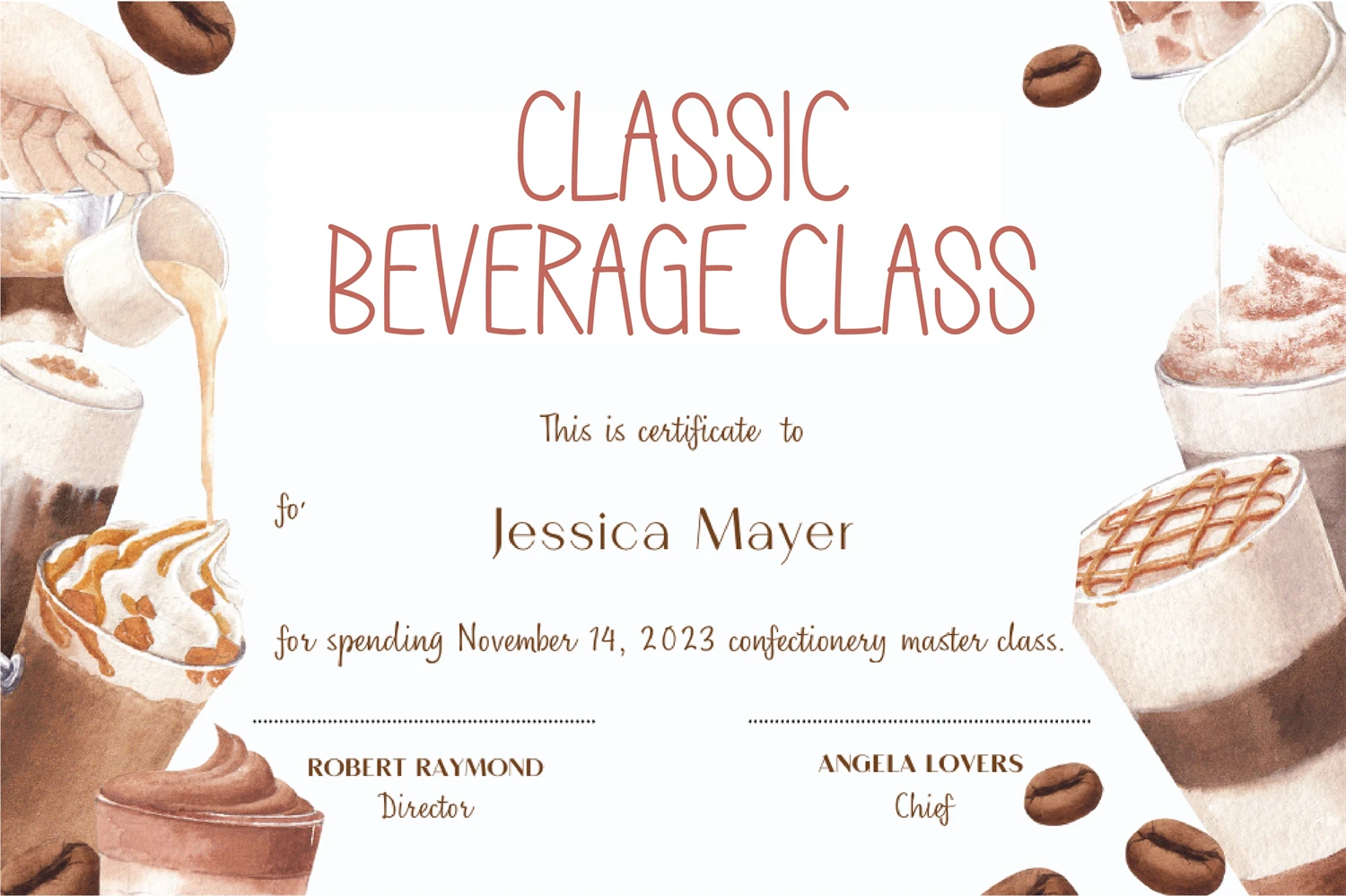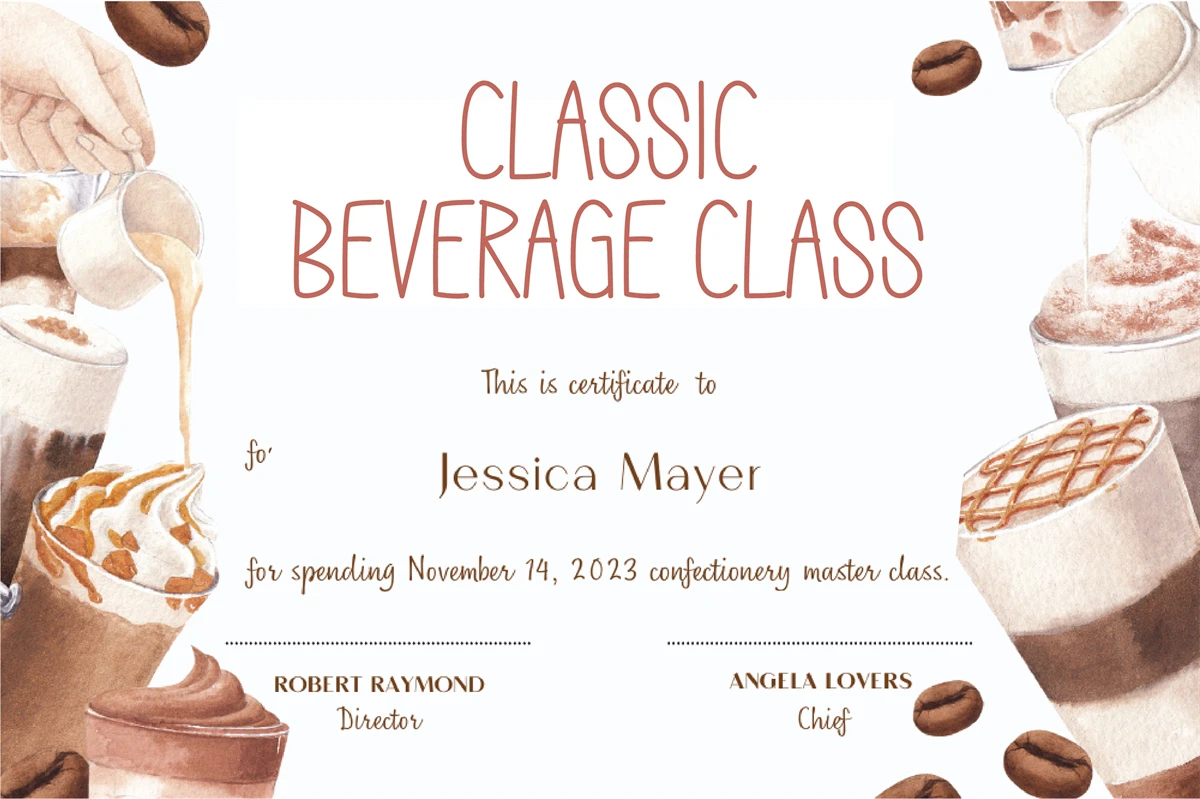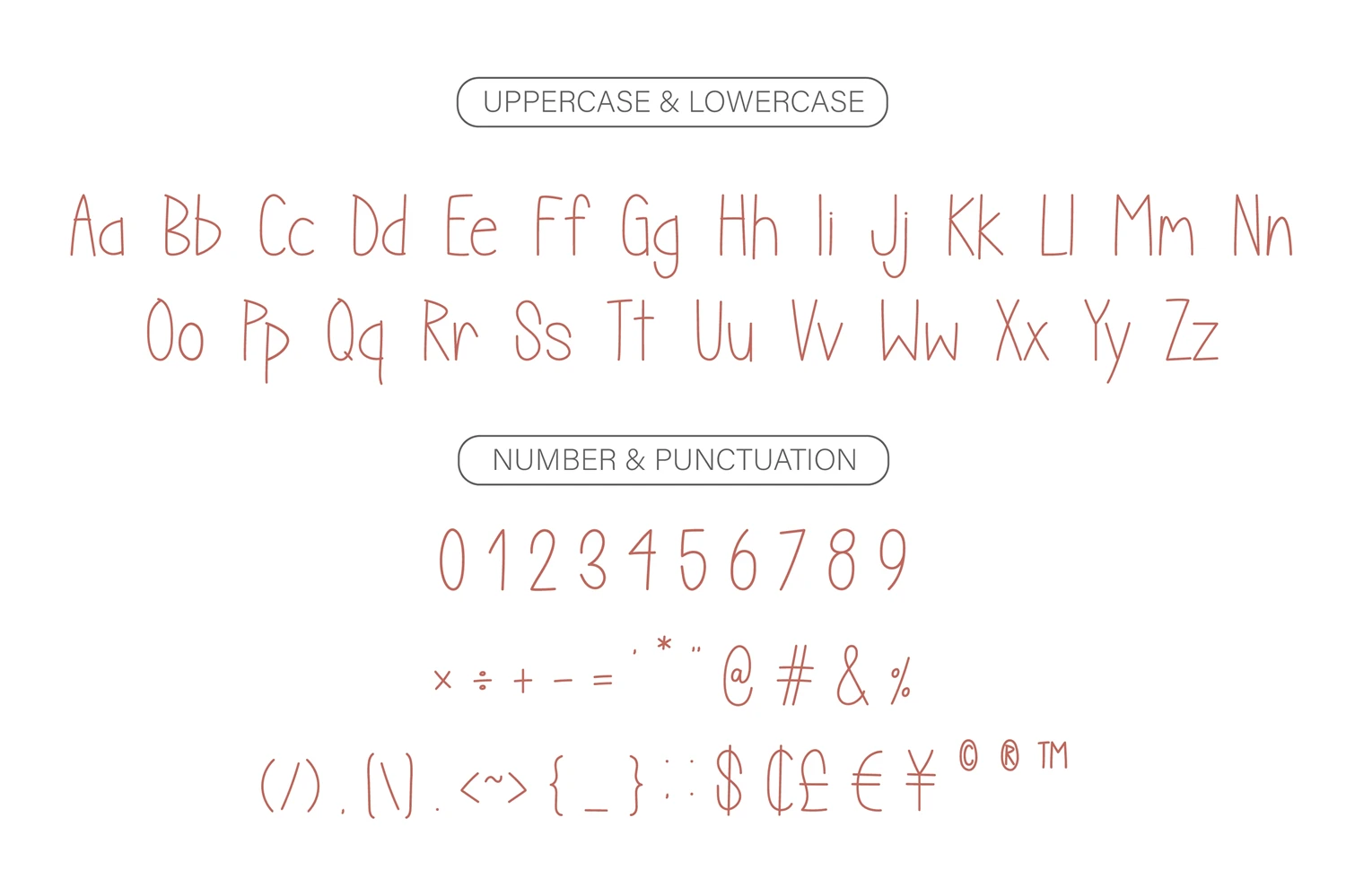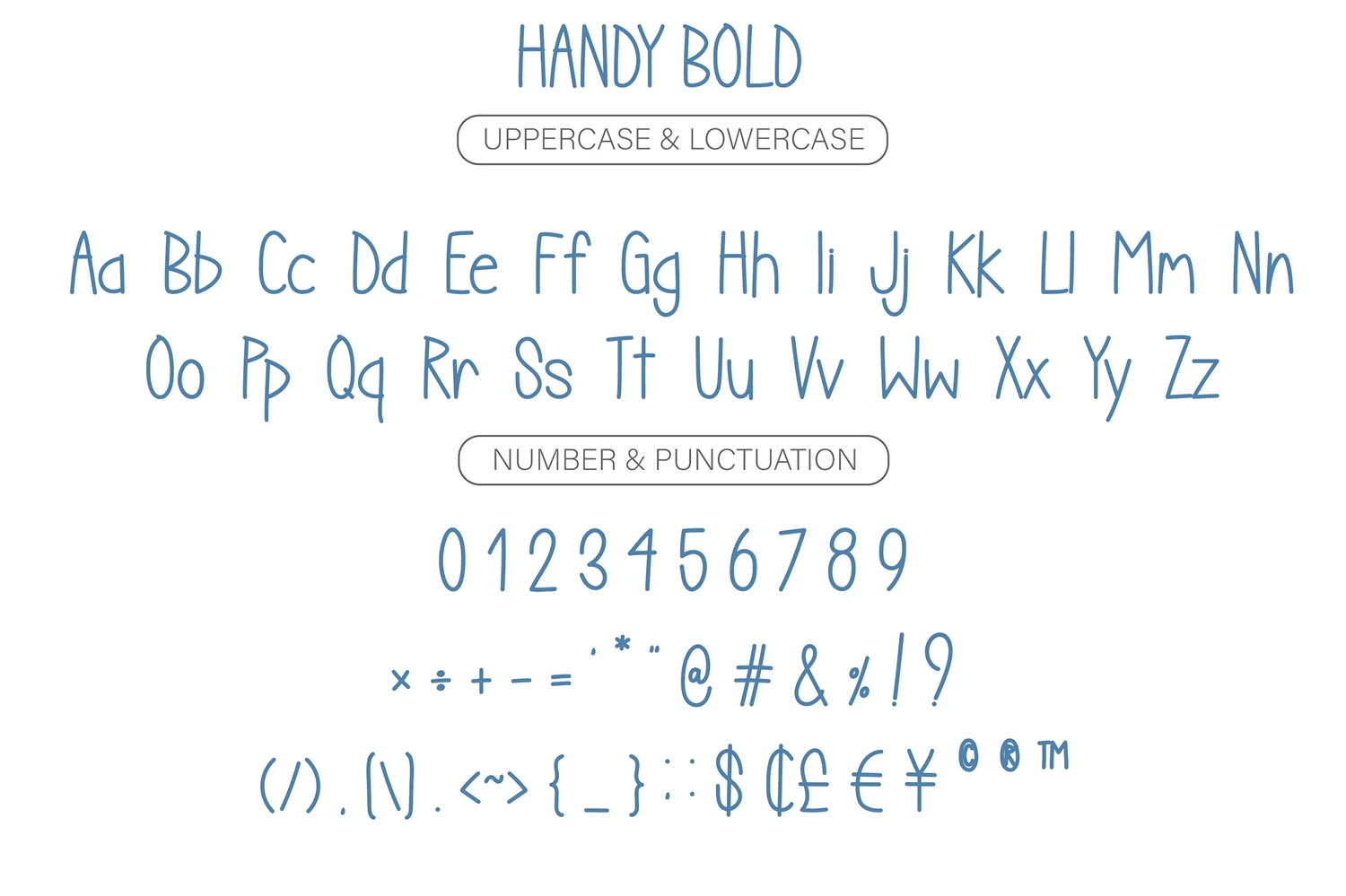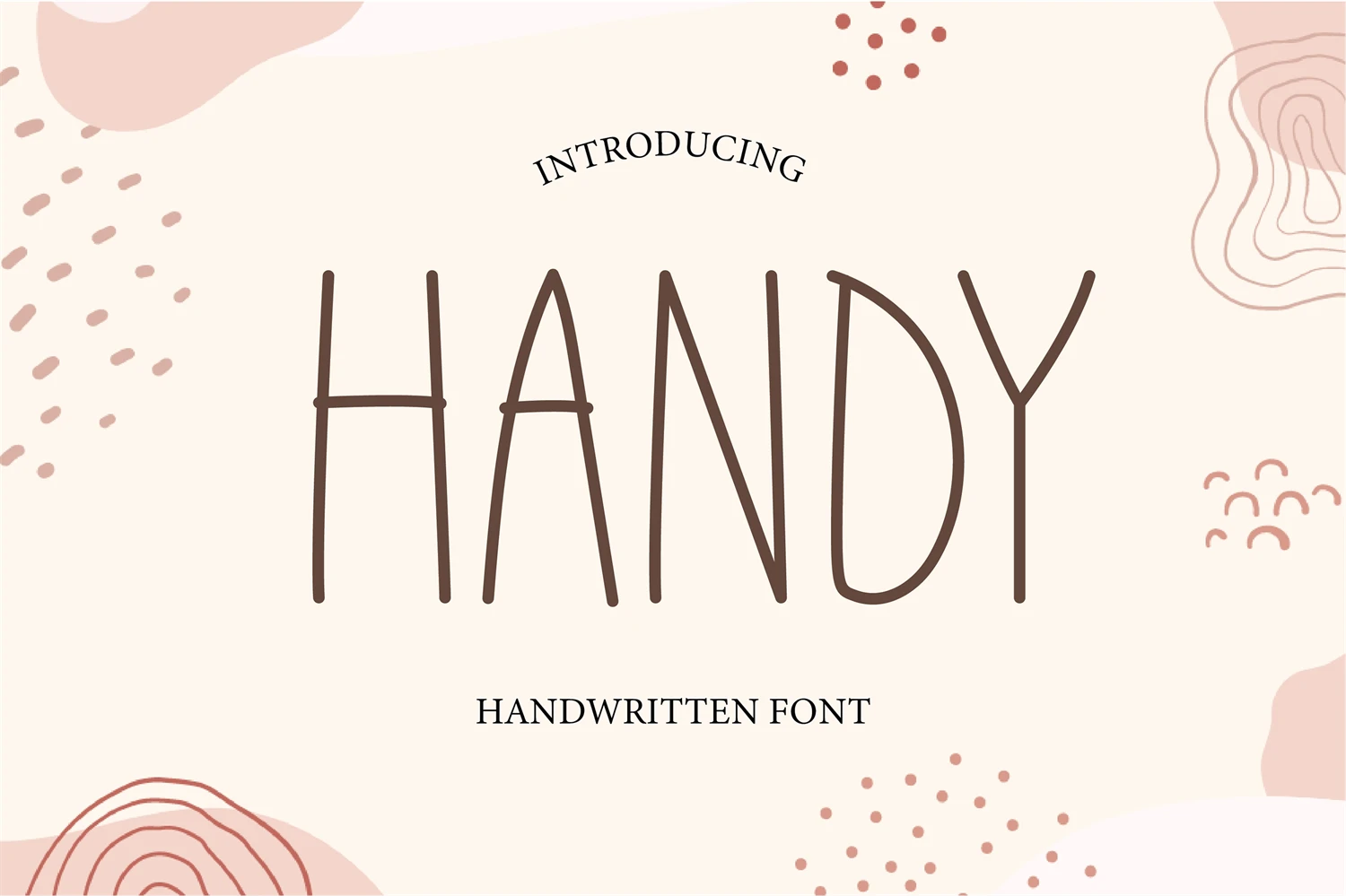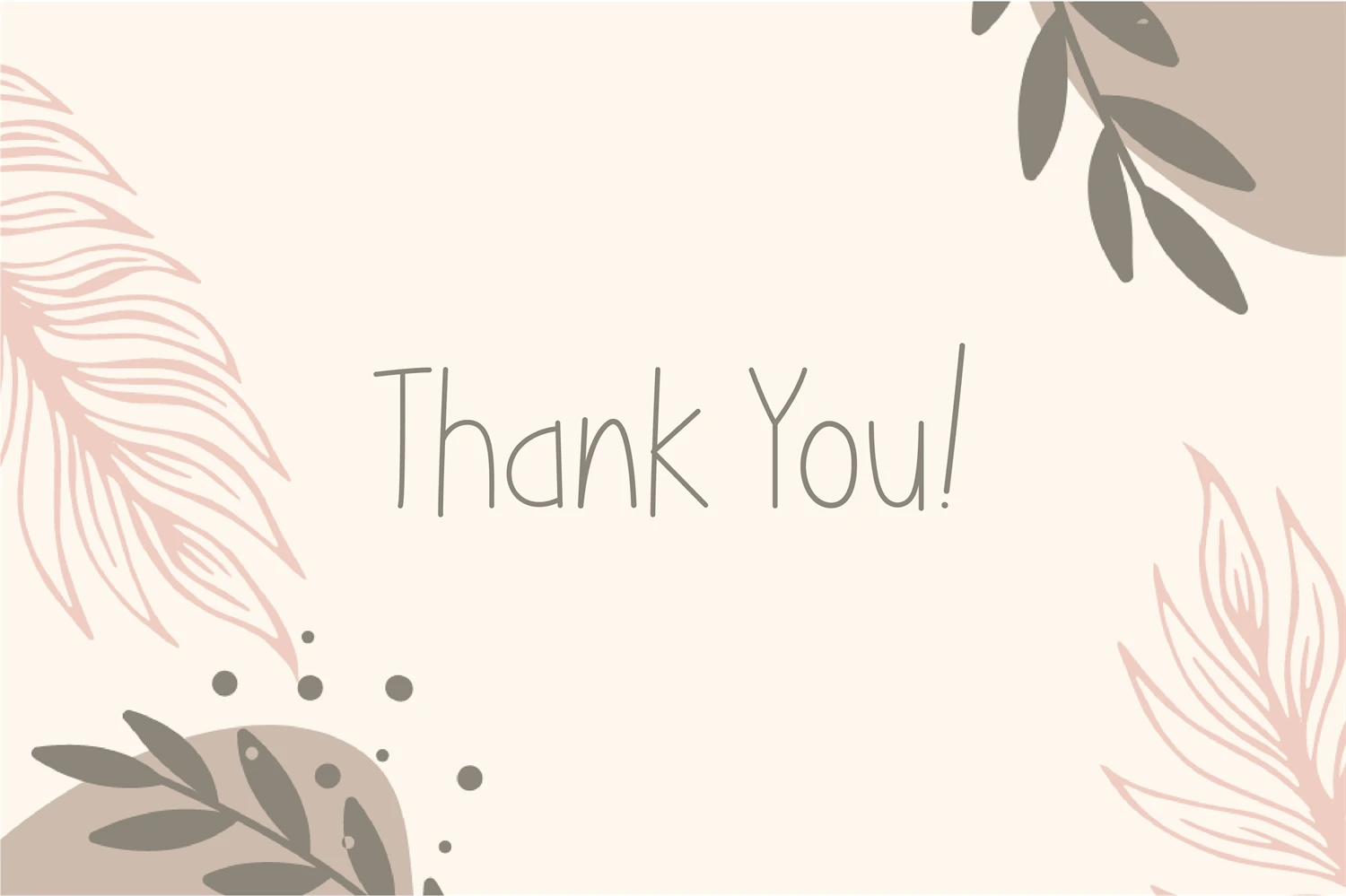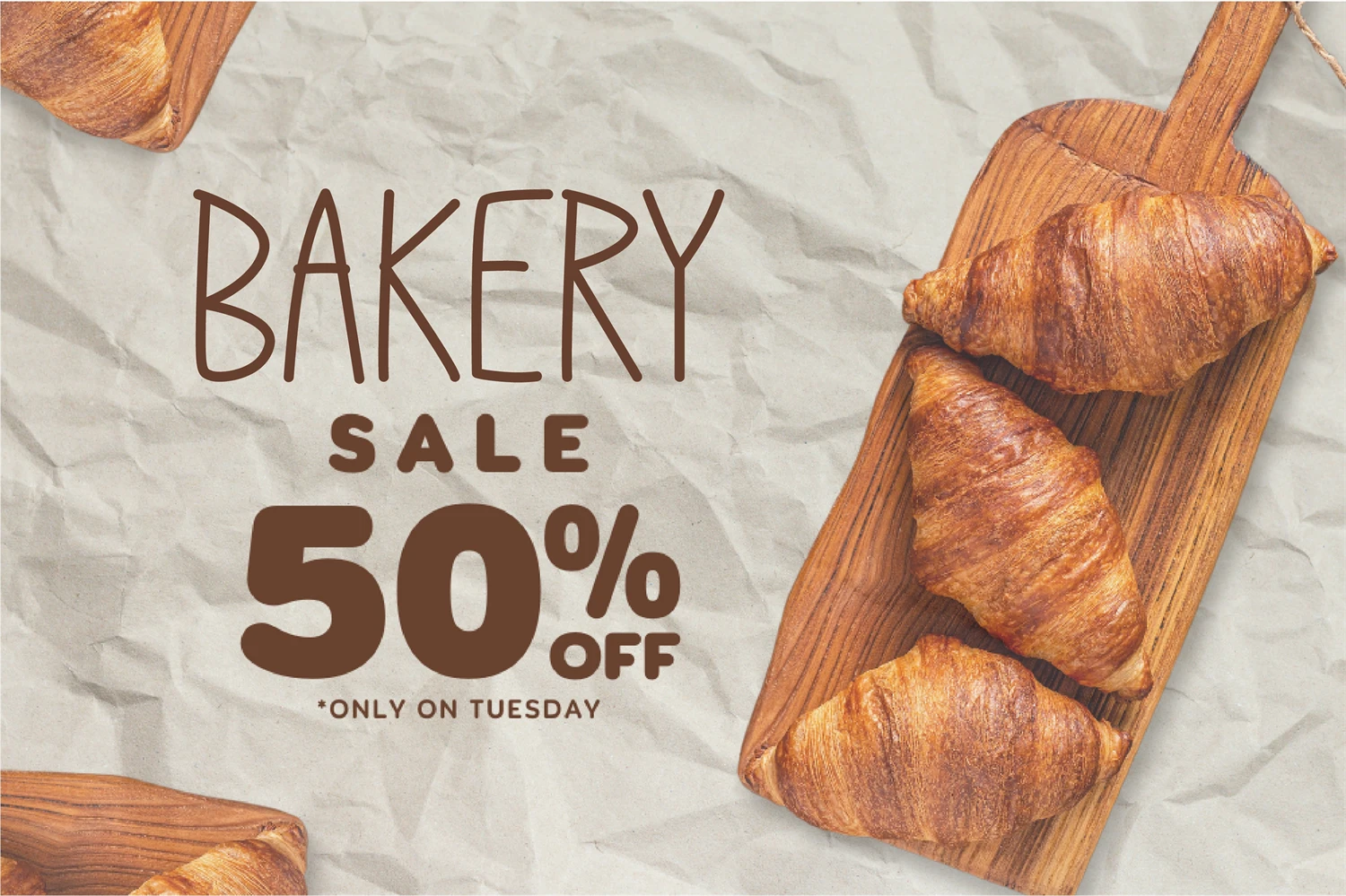
Handy is a friendly handwritten font that will turn any creative idea into a true standout! Stay creative with this cute and playful typeface, and use it to brighten any school project!